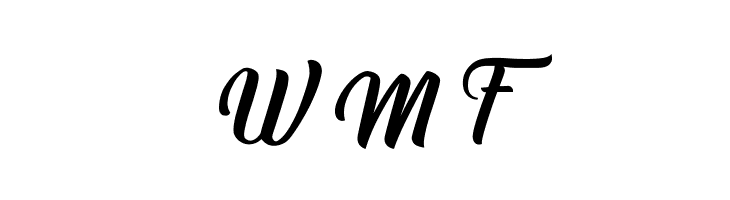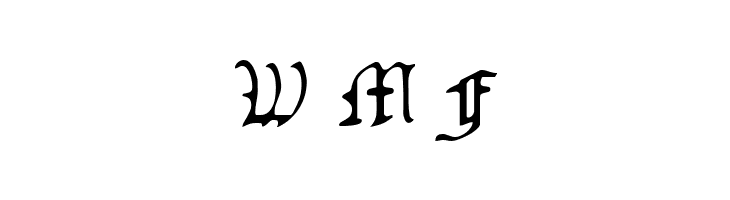
Breakfast Noodles DEMO Regular Font
Font by Hanoded
A playful, bold font with a hand-drawn, whimsical style.
Breakfast-Club Font
Font by Tokopress
A playful, hand-drawn font with a whimsical and informal style.
BreakfastDEMO Font
Font by Pizzadude
A playful, irregular handwritten font with tall, narrow letterforms.
Deadly Breakfast Font
Font by Mr Fisk - Mike Larsson - fontorama.net
A Gothic-style font with ornate, medieval-inspired characters.
Bed and Breakfast Regular Font
javierugarte.nixiweb.com/index.html
A playful, hand-drawn font with bold, rounded characters and a whimsical style.
Breakfast And Chill DEMO Regular Font
Brittney Murphy
A playful handwritten font with tall, narrow letters and whimsical strokes.
Italian Breakfast Regular Font
RB Fonts - rbfonts.com
A graceful and elegant script font with fluid, cursive characters.
Power Breakfast DEMO Regular Font
Font by Hanoded
A playful, bold font with a hand-drawn style and unique symbols.
Breakfast on the beach Personal Use Font
Casady & Greene
A bold, expressive script font with a handwritten, fluid style.
Pea Yummy Breakfast Font
A playful, handwritten font with a casual and friendly appearance.
Coffee for Breakfast Font
A playful, handwritten font with rounded edges and a casual style.
Breakfast at Michy's Font
InermediaSTUDIO
A playful, hand-drawn font with a casual and whimsical style.
BreakfastCereal Font
A playful, boxed font with a whimsical and structured design.
Breakfast Sweety Font
A playful, rounded font with smooth curves and a friendly appearance.
Breakfast Font
A lively, cursive font with interconnected, flowing strokes.
S*x and Breakfast Regular Font
Vladimir Nikolic - www.coroflot.com/vladimirnikolic
A playful, hand-drawn font with a mix of bold and hollow characters.
Christmas Breakfast Font
Font by Mozatype
A casual handwritten script font suitable for informal and friendly designs.